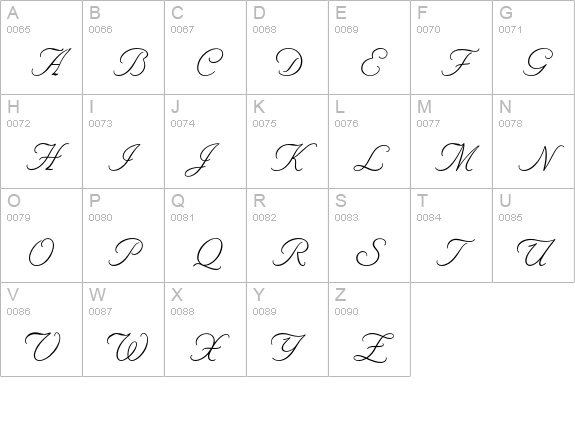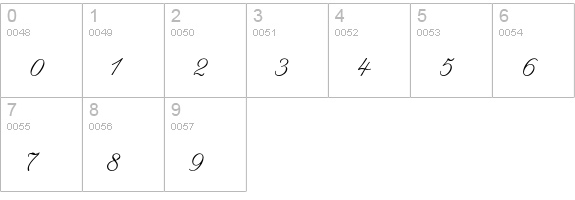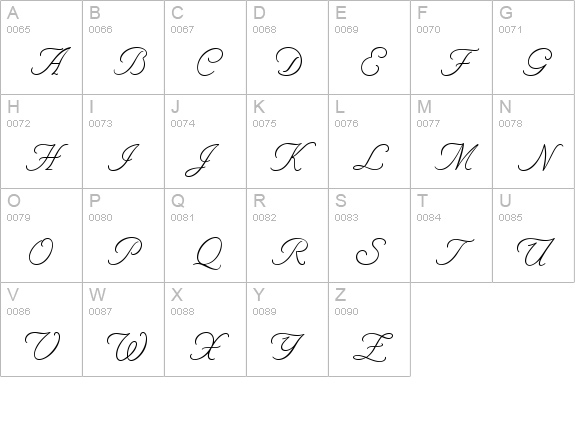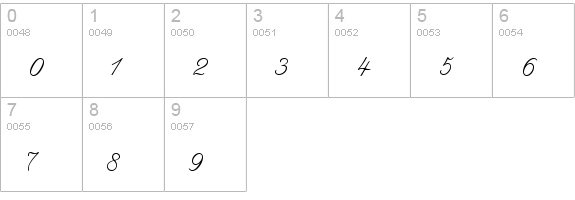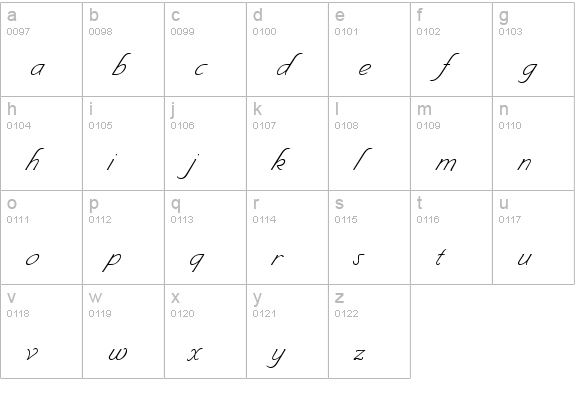
Byron RR Light is a refined, elegant variant in the Byron typeface family \xE2\x80\x94 well suited to elegant body text, refined sub-headings, and luxury branding.
Byron RR Light is a modern and sleek font that exudes elegance and sophistication. Its clean lines and slight curves make it perfect for a wide range of design projects, from branding to editorial design. The light weight of the font adds a touch of delicacy and refinement to any layout. What makes Byron RR Light even more appealing is that it is available for free download at FontsMarket.com. This means you can easily access this stunning font and use it in your projects without any cost. Whether you're a professional designer or a hobbyist, Byron RR Light is a versatile typeface that will elevate your designs to the next level. Download it today and add a touch of class to your creations.